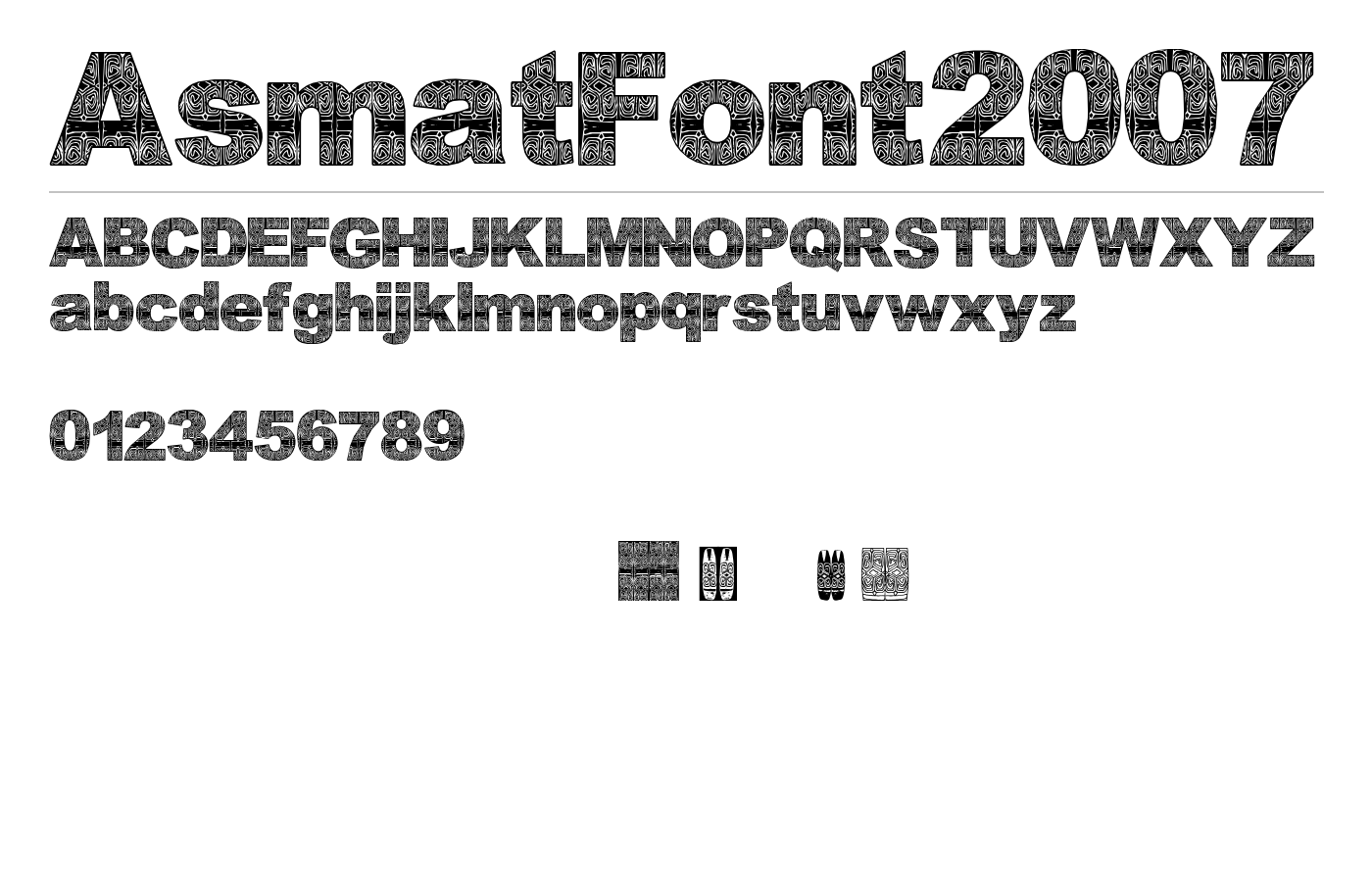
AsmatFont2007 is a bold and heavily textured display font characterized by intricate tribal or ornamental patterns filling each letterform. Its strong, blocky shapes with uniform weight create a striking and decorative look, perfect for eye-catching headlines, posters, and branding that seeks to convey an ethnic or handcrafted vibe. This font works best in creative, artistic projects where its detailed design can stand out and add a unique cultural flair.